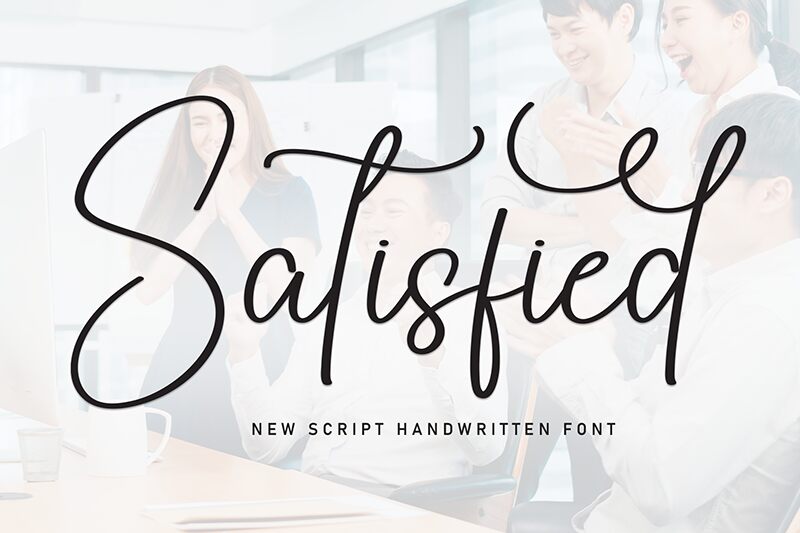
Satisfied font by Scratchones is a dynamic handwritten free font that radiates elegance and style. Its flowing lines create an inviting and sophisticated presence that will captivate onlookers instantly. No occasion or context calls for being satisfied with average typefaces, which makes Satisfied perfect for whenever you’re looking for a font that expresses creativity in the modern world.
The organic and rock and roll-like casualness of the Satisfied font makes it great for posters, cards, social media posts, branding projects, apparel designs, and infographics. It’s suitable for packaging, whether it’s displayed with food boxes, bags, labels, or even mobile covers. Its sophisticated look can be showcased with logotypes, magazine covers, and keys to adding a daring touch to magazines and books as well.